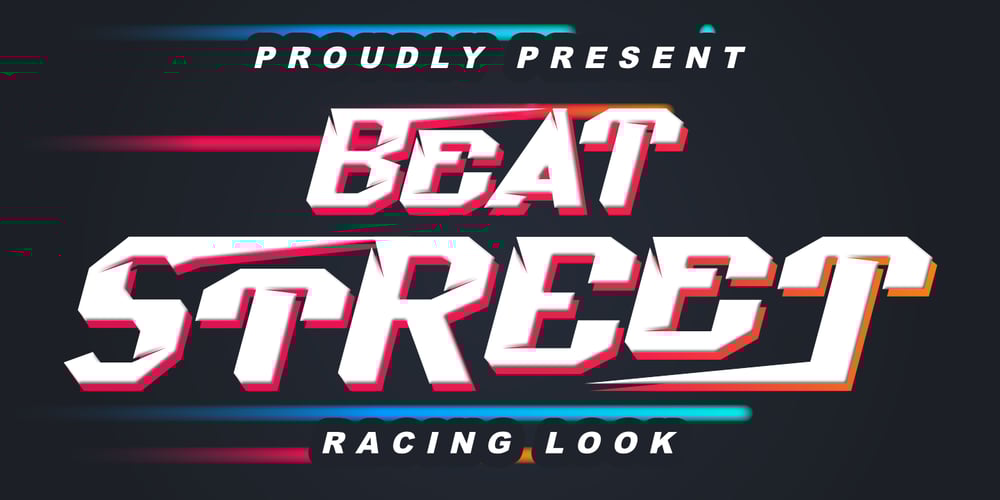
Beat Street Font Family was designed by Stephanus Prabowo and published by Andrey Font Design. Beat Street contains 2 styles and family package options. Beat Street is a strong display font inspired by the world of car racing, suitable for racing-themed projects such as magazines, games, logos branding, and much more! Fall in love with its incredible style, and use it to create spectacular designs!This font is PUA encoded, which means you can access all of the glyphs and swashes with ease!